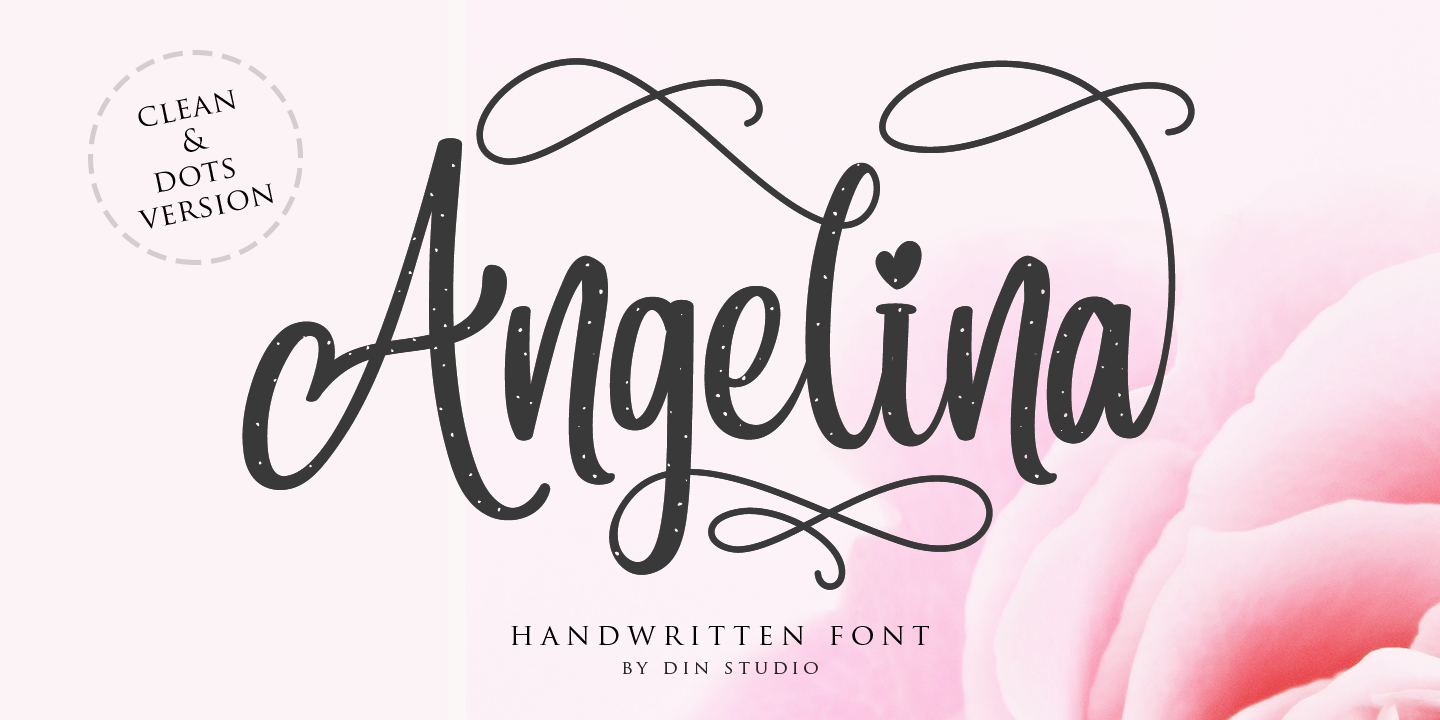
Angelina Script Font is perfect for elegant wedding invitations, luxury beauty brand logos, romantic greeting cards, high-end fashion boutique signage, sophisticated spa branding, feminine lifestyle blogs, upscale jewelry packaging, and graceful calligraphy projects.
Angelina Script Font is exciting because it embodies divine feminine elegance with its flowing, graceful letterforms that dance across the page like silk ribbons in a gentle breeze, capturing the ethereal beauty and angelic sophistication that defines timeless romance and luxury aesthetics, making it ideal for projects requiring celestial grace and sophisticated femininity.
The Angelina Script Font family includes multiple weights and styles such as Regular Script, Bold Script, Light Script, Flourished, and Ornamental versions, providing designers with comprehensive options for creating enchanting typographic systems that maintain the angelic elegance across various luxury and romantic applications.
Angelina Script Font Free Download offers designers access to a divinely inspired typeface that embodies the heavenly beauty and graceful sophistication of angelic artistry. This exceptional font captures the essence of ethereal elegance and the timeless appeal of feminine grace, creating a powerful tool for brands seeking to communicate luxury, romance, and the sublime beauty that touches the soul.
The font's exquisite letterforms feature flowing curves and delicate flourishes that mirror the gentle movements found in classical ballet and the graceful strokes of master calligraphers. Each character has been lovingly crafted to work harmoniously within compositions, ensuring that Angelina Script Font delivers optimal beauty while maintaining readability across various luxury and romantic applications.
Professional designers working with high-end beauty brands and luxury wedding services appreciate this font's ability to instantly communicate elegance and divine sophistication. The typeface excels in applications where romantic beauty meets luxury positioning, from premium cosmetics branding to exclusive wedding planning, from high-fashion editorial design to luxury hospitality marketing.
The comprehensive character set includes ornate swashes and decorative elements that enhance the angelic aesthetic, making it particularly suitable for luxury projects while preserving its distinctive celestial character. Whether used for elegant invitations, luxury product labels, or romantic branding materials, this font delivers consistent visual enchantment that enhances emotional connection and brand prestige.
Creative professionals in the luxury and beauty industries have embraced Angelina Script Font for its unique ability to transform ordinary text into heavenly visual poetry. Its versatility allows it to adapt seamlessly to both traditional romantic themes and contemporary luxury aesthetics while maintaining its angelic grace and sophisticated appeal.
This remarkable typeface has become an essential tool for designers who understand that certain brands require typography that speaks to the heart and soul. Its ability to instantly communicate divine beauty and romantic sophistication makes it invaluable for luxury brands seeking to create emotional connections with discerning audiences.